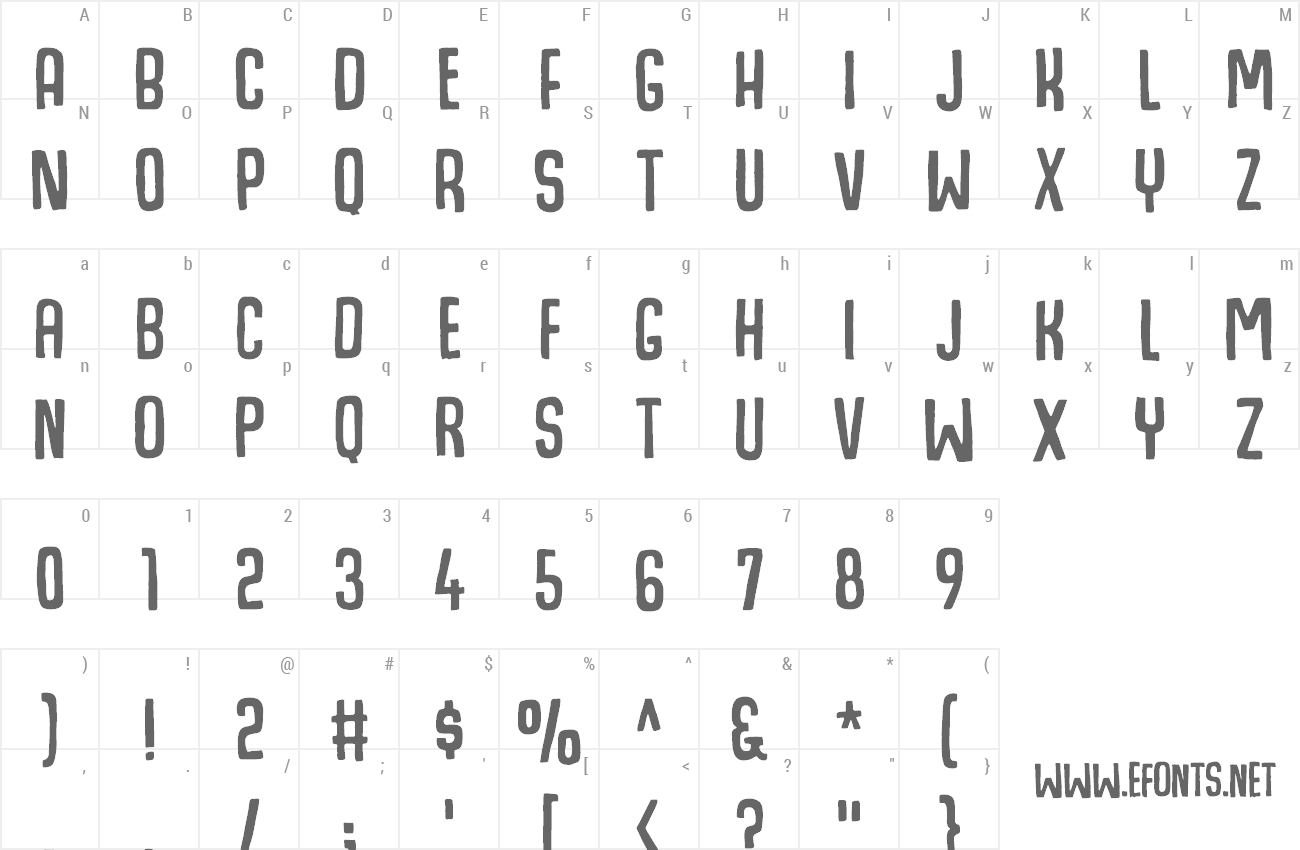
| Font name: | Hogfish |
| Note by Pizzadude | |
| Hogfish comes with contextual alternates that cycles as you type! 6 different versions of each letter for you to play around with! |